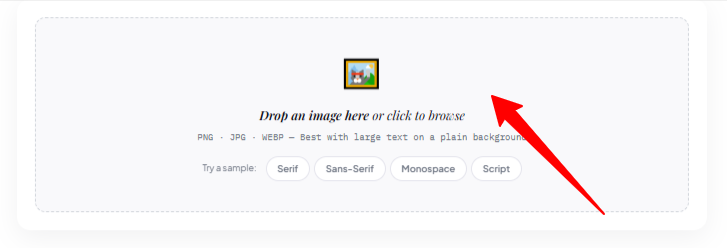
How to Find Font Type From Image Fast
Learn how to find font type from image instantly using AI-powered detection and visual font matching techniques.
If you want to know how to find font type from image, the fastest method is uploading the image into an AI font identifier like Find Font AI. The tool scans letter shapes, spacing, curves, and typography patterns to identify the closest matching font within seconds.
Sometimes one screenshot is enough to uncover an entire brand identity.
I realized how strange typography obsession becomes when I spent twenty minutes staring at a coffee cup logo instead of drinking the coffee.
The font felt familiar. Not famous enough to recognize instantly. Not generic enough to ignore. Somewhere between deliberate and accidental. And suddenly I was zooming into curves of letters like a detective studying fingerprints under fluorescent light.
That’s usually how it starts.
Someone sees a font on Instagram. A YouTube thumbnail. A movie poster. A product label. A random quote image floating through Pinterest at 1:13 AM. And then the question appears:
“How do I find font type from image?”
At first, most people assume typography experts somehow memorize thousands of fonts. They don’t. Even experienced designers get stuck. Fonts mutate. Logos get customized. Compression destroys details. Screenshots blur edges into mush.
Modern font discovery is no longer about guessing. It’s about pattern recognition.
That’s where tools like Find Font AI quietly change the experience. Instead of manually searching through endless font libraries, users can upload an image and let AI analyze the typography structure automatically.
And honestly, the emotional relief matters more than the convenience.
Because searching for fonts manually feels like trying to identify a song by humming badly into the void.
What “Find Font Type From Image” Actually Means
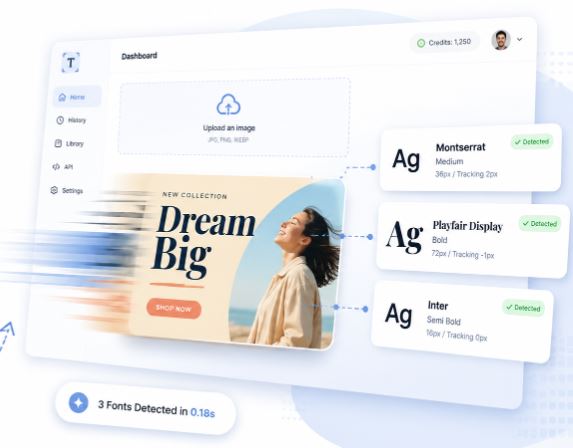
Most people think font detection is simple image recognition.
It isn’t.
A font identifier does something more specific. It studies the anatomy of letters.
The thickness of strokes.
The curve of the “R.”
The spacing between characters.
The angle of terminals.
The proportions inside each glyph.
Tiny details matter.
A single lowercase “g” can separate one font family from another entirely.
According to Find Font AI, modern AI font recognition systems compare uploaded text against massive typography databases using shape-matching algorithms and visual similarity scoring.
That sounds technical. But visually, it behaves almost like facial recognition for letters.
And the strange thing is this:
Humans notice fonts emotionally before they notice them technically.
A sharp geometric sans-serif feels modern.
A soft serif feels trustworthy.
A handwritten script feels intimate.
A condensed bold font feels urgent.
Typography shapes perception before words even register.
That’s why people search for fonts in the first place.
Not because they love typography.
Because they want to recreate a feeling.
Why People Struggle to Identify Fonts Manually
There’s a myth floating around design communities that identifying fonts is easy if you “know typography.”
That’s only partly true.
The internet quietly flooded itself with millions of font variations over the last decade. Free fonts. Variable fonts. Customized fonts. AI-generated fonts. Modified branding systems. Hybrid letterforms.
Everything started blending together.
And screenshots make the problem worse.
Compression destroys edge clarity.
Perspective distorts proportions.
Filters alter contrast.
Logos modify characters.
Sometimes the uploaded image contains only three visible letters.
That’s barely enough information for a human.
But AI handles incomplete visual patterns surprisingly well.
Instead of relying on memory, systems analyze measurable structures. The process becomes mathematical instead of intuitive.
This changes the entire workflow.
You stop guessing.
You stop scrolling endlessly.
You stop opening 47 browser tabs comparing tiny letter differences.
You upload the image.
The system does the pattern analysis.
You move forward.
That simplicity matters more than people realize.
How AI Detects Fonts From Images
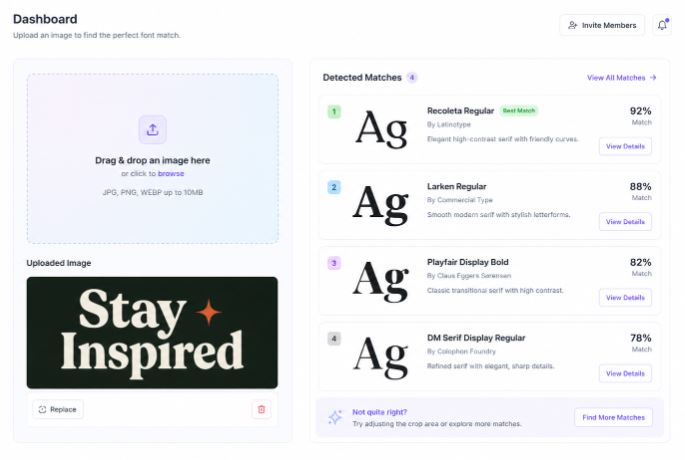
Image Processing Comes First
Before font matching even begins, the image itself gets cleaned and analyzed.
The AI isolates visible text areas. It removes background distractions. It sharpens edges and improves character visibility.
Sometimes the uploaded image looks terrible to humans but remains usable for machine analysis.
That’s one of the surprising advantages of AI typography detection.
Machines care less about aesthetics and more about geometry.
Letter Shapes Become Data
Once text is isolated, the tool converts characters into measurable structures.
Key Takings
- Learning how to find font type from image saves enormous creative time.
- AI font recognition works by analyzing typography structure, not guessing visually.
- Clear screenshots improve matching accuracy significantly.
- Exact matches matter less than visually usable alternatives.
- Typography influences trust, branding, and emotional perception online.
- Modern font detection tools reduce friction between inspiration and execution.
- Find Font AI simplifies font discovery into a fast upload-and-analyze workflow.